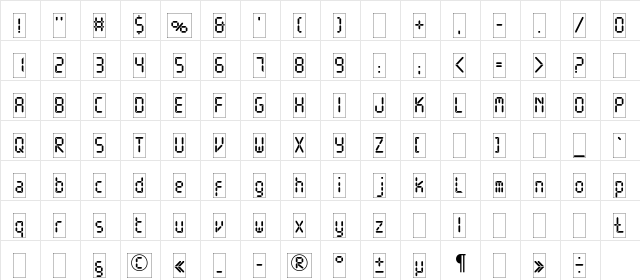
ElectronicaWhiteC Regular
Design Context for ElectronicaWhiteC Typeface
ElectronicaWhiteC is a composed and adaptable typeface that performs quietly and consistently across a wide range of design contexts.